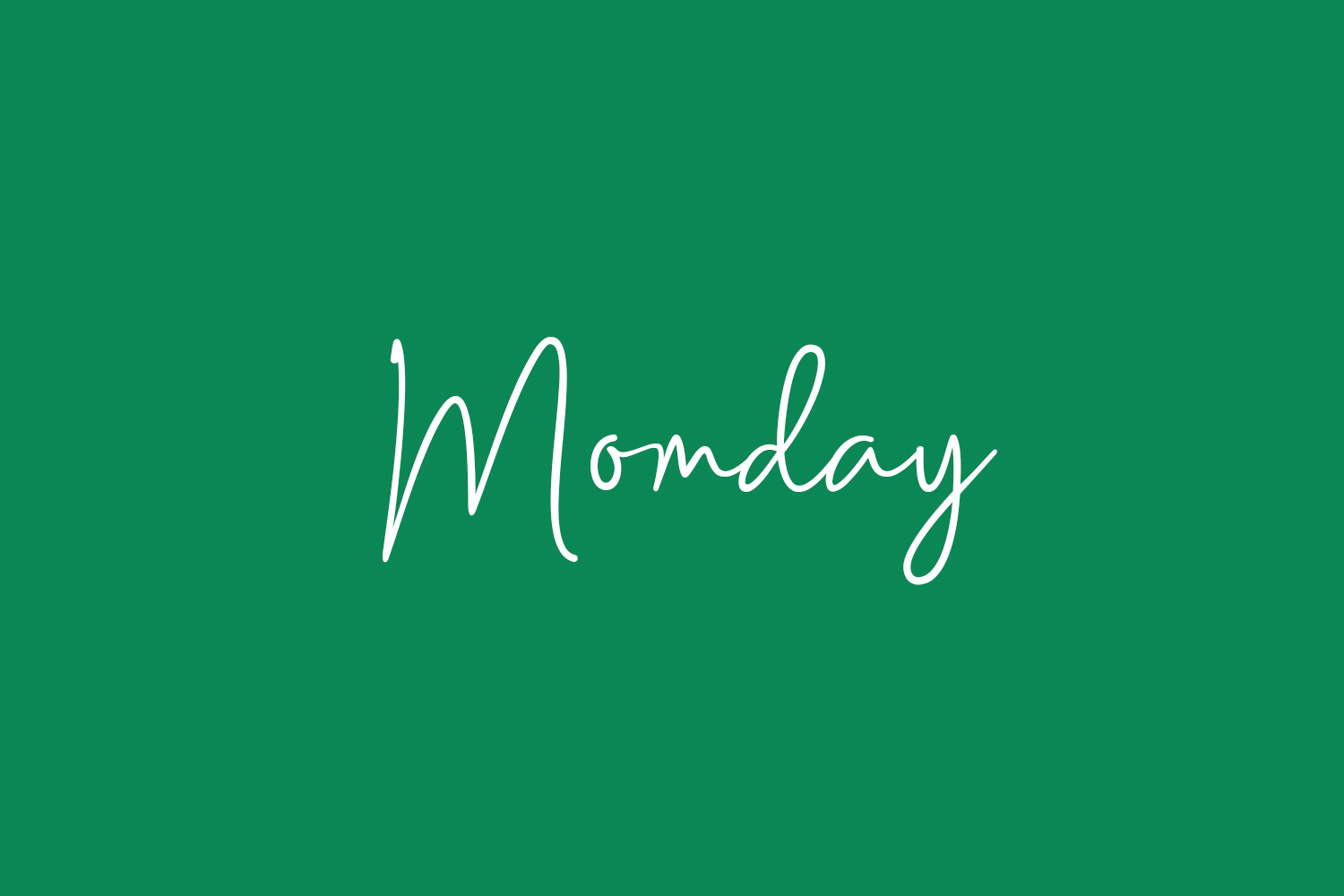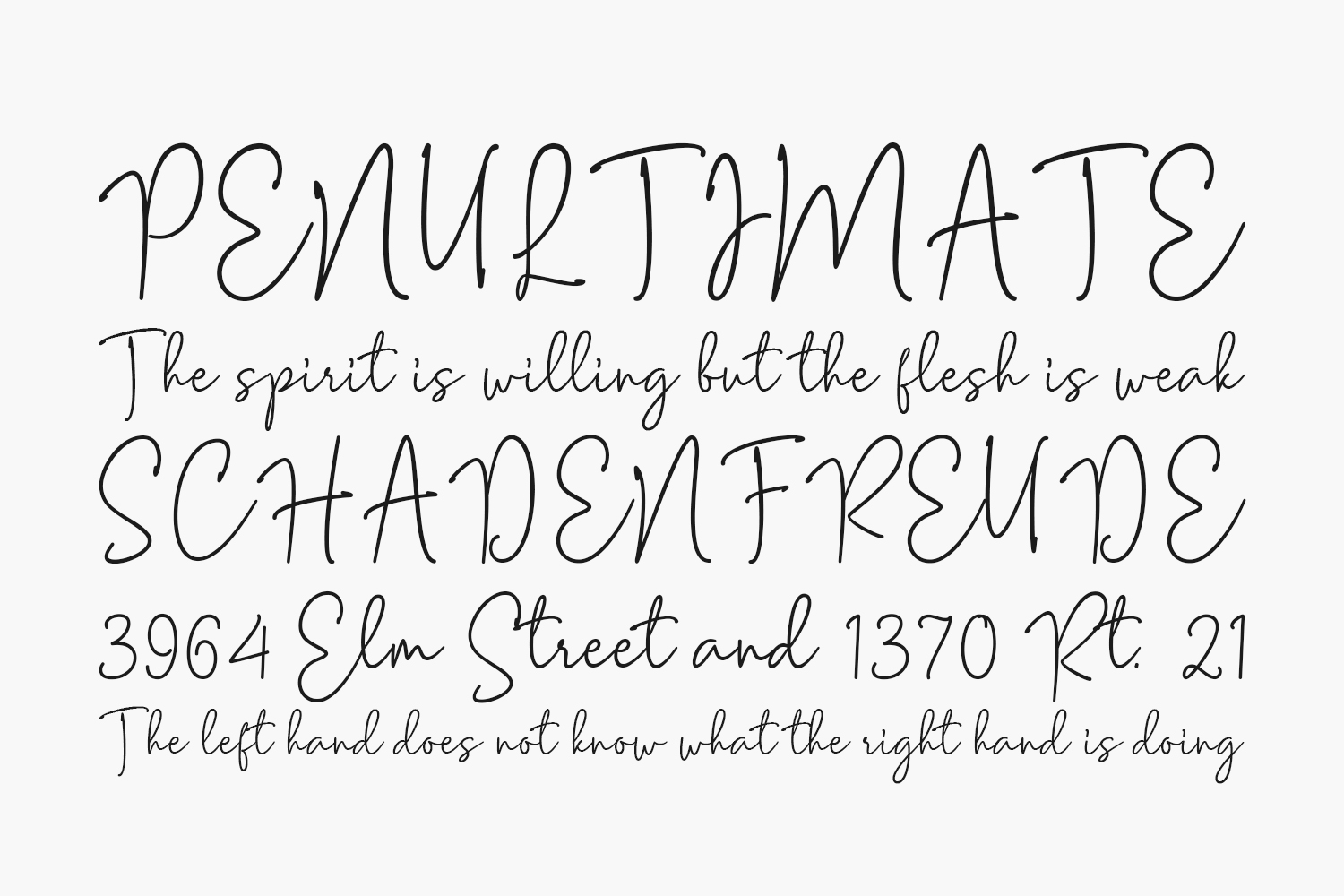
Momday Free Font is my latest font with an interesting style and it is perfect to use for your design work. Momday Free Font is for personal use only. It can be used for various purposes. such as post, calligraphy, logos, posters, t-shirts, signage, labels, wedding invitations, etc.
Designed by Hermestype